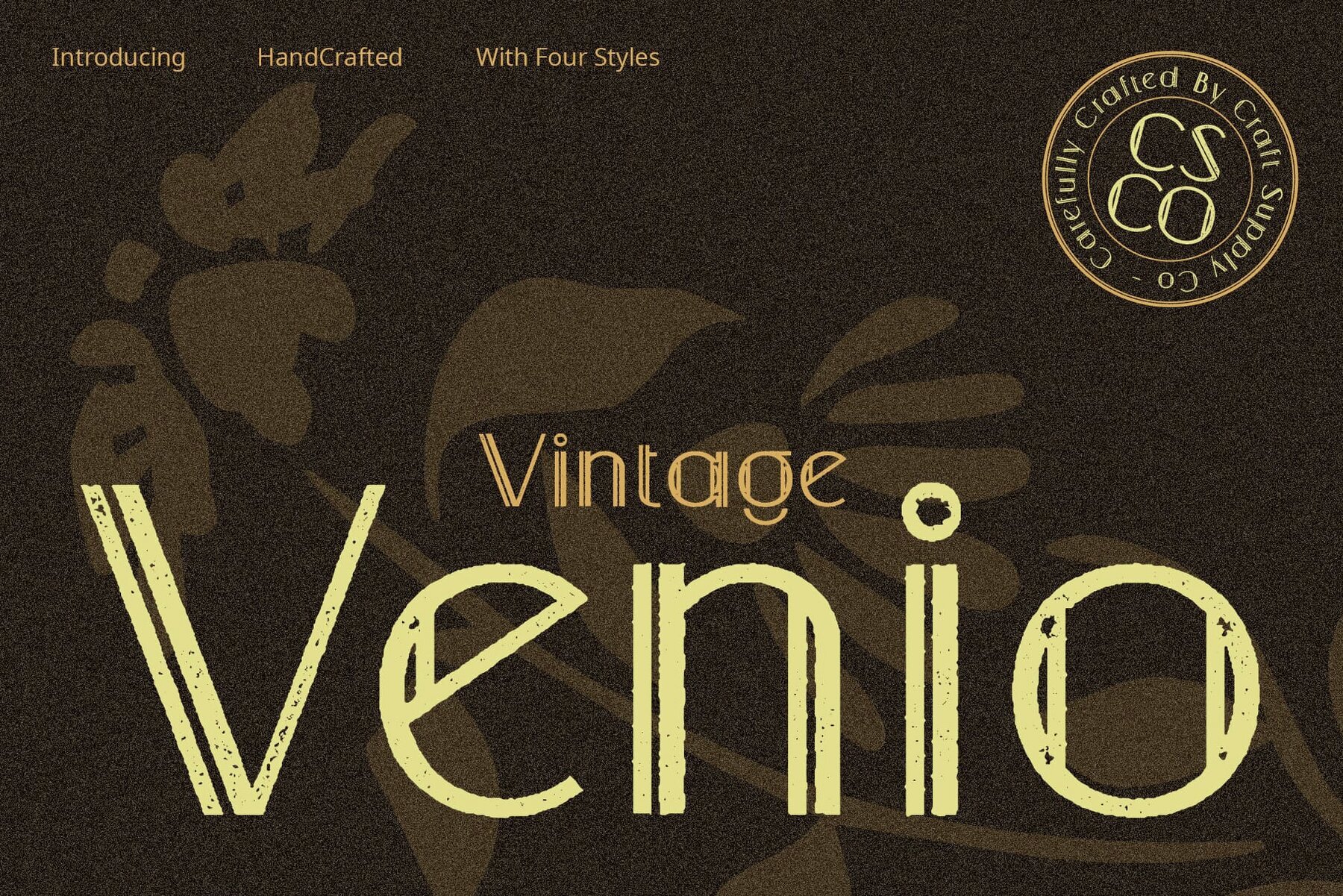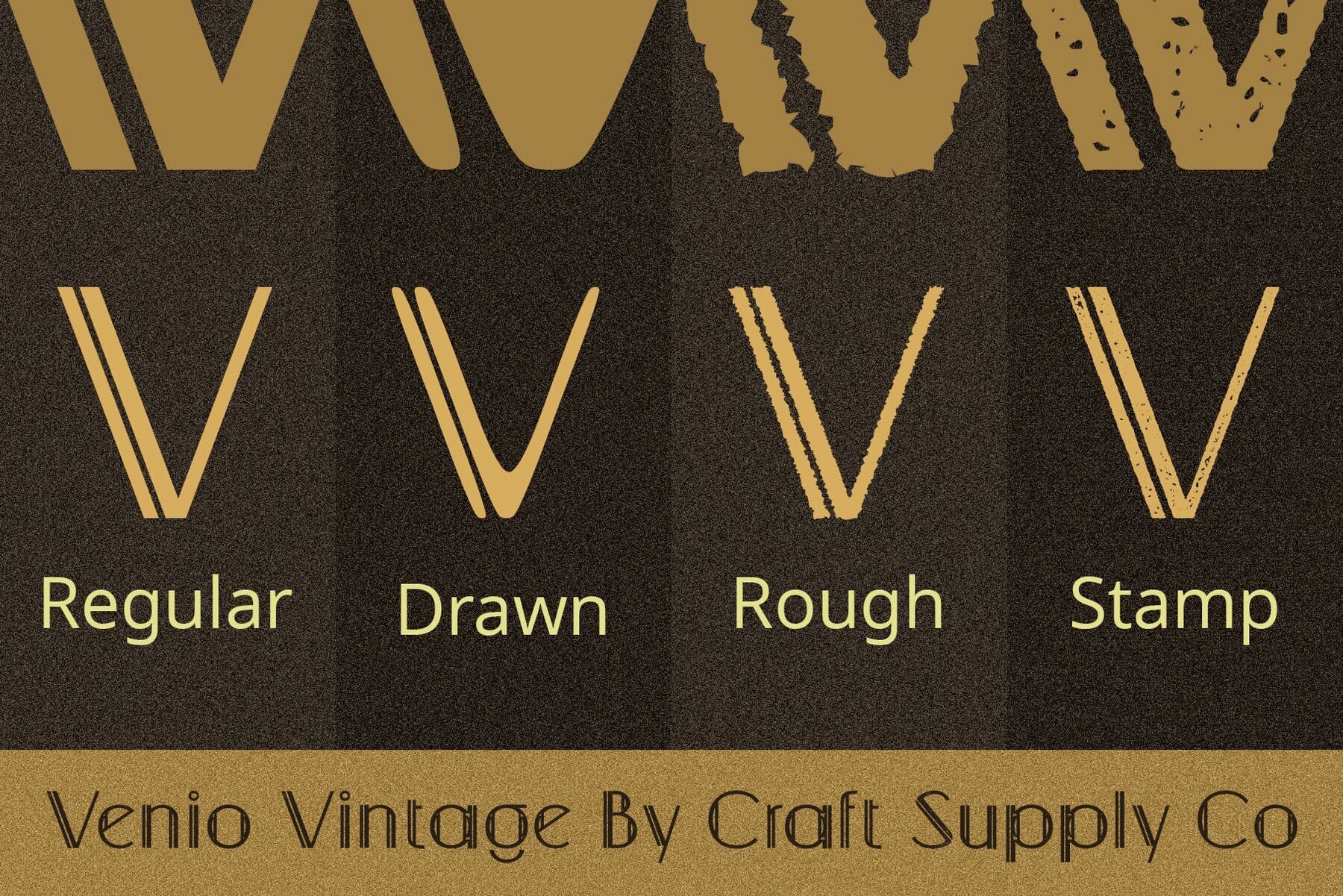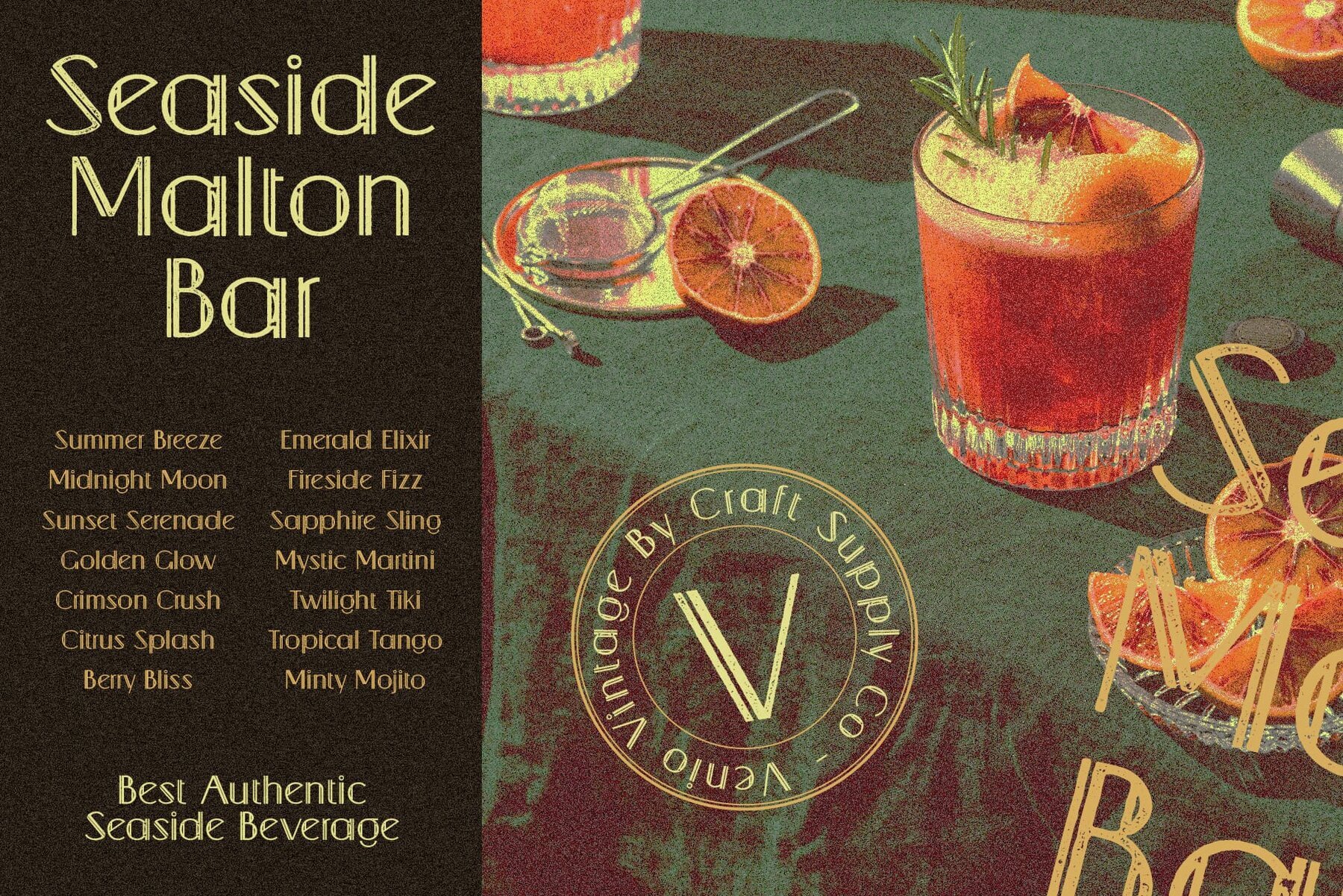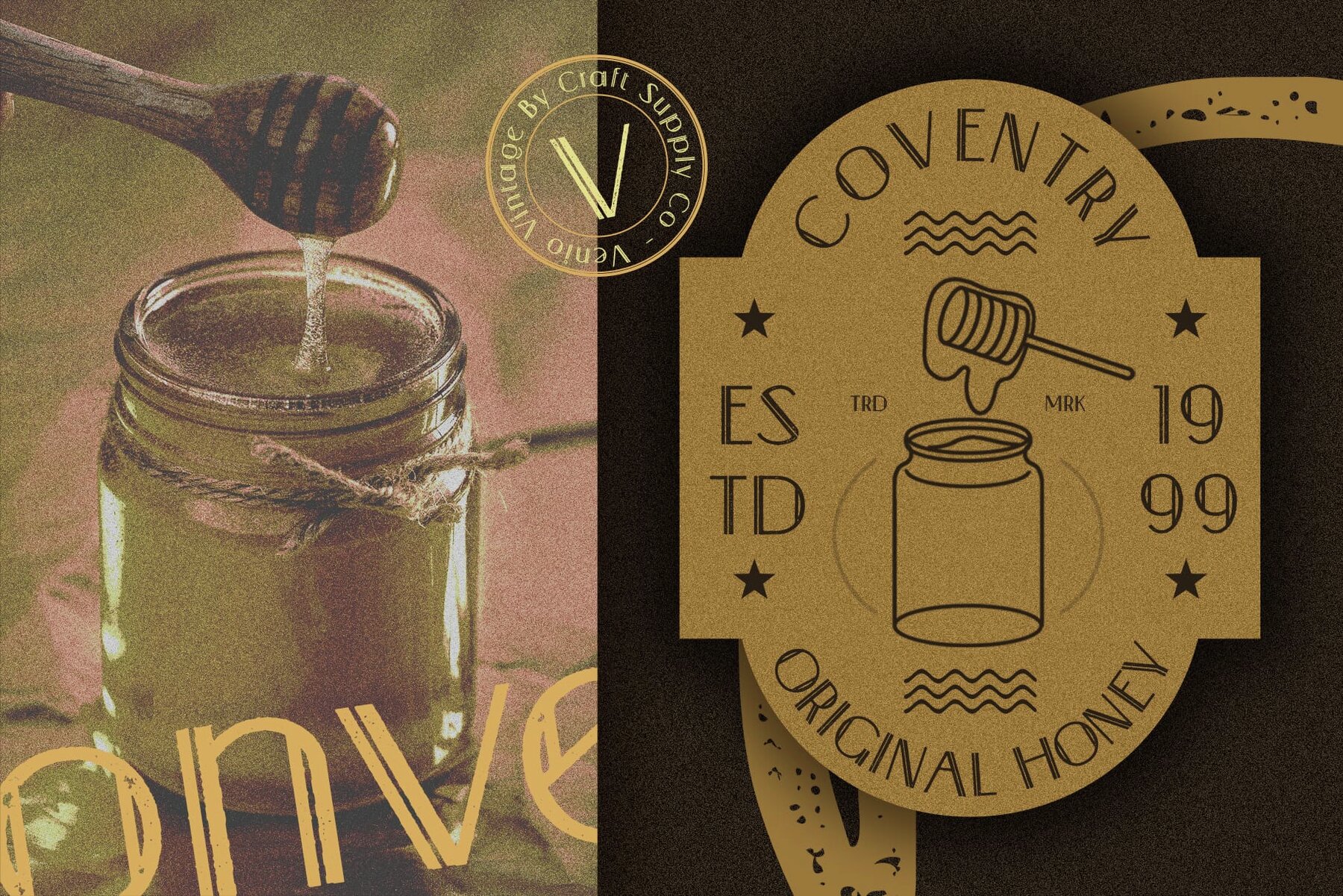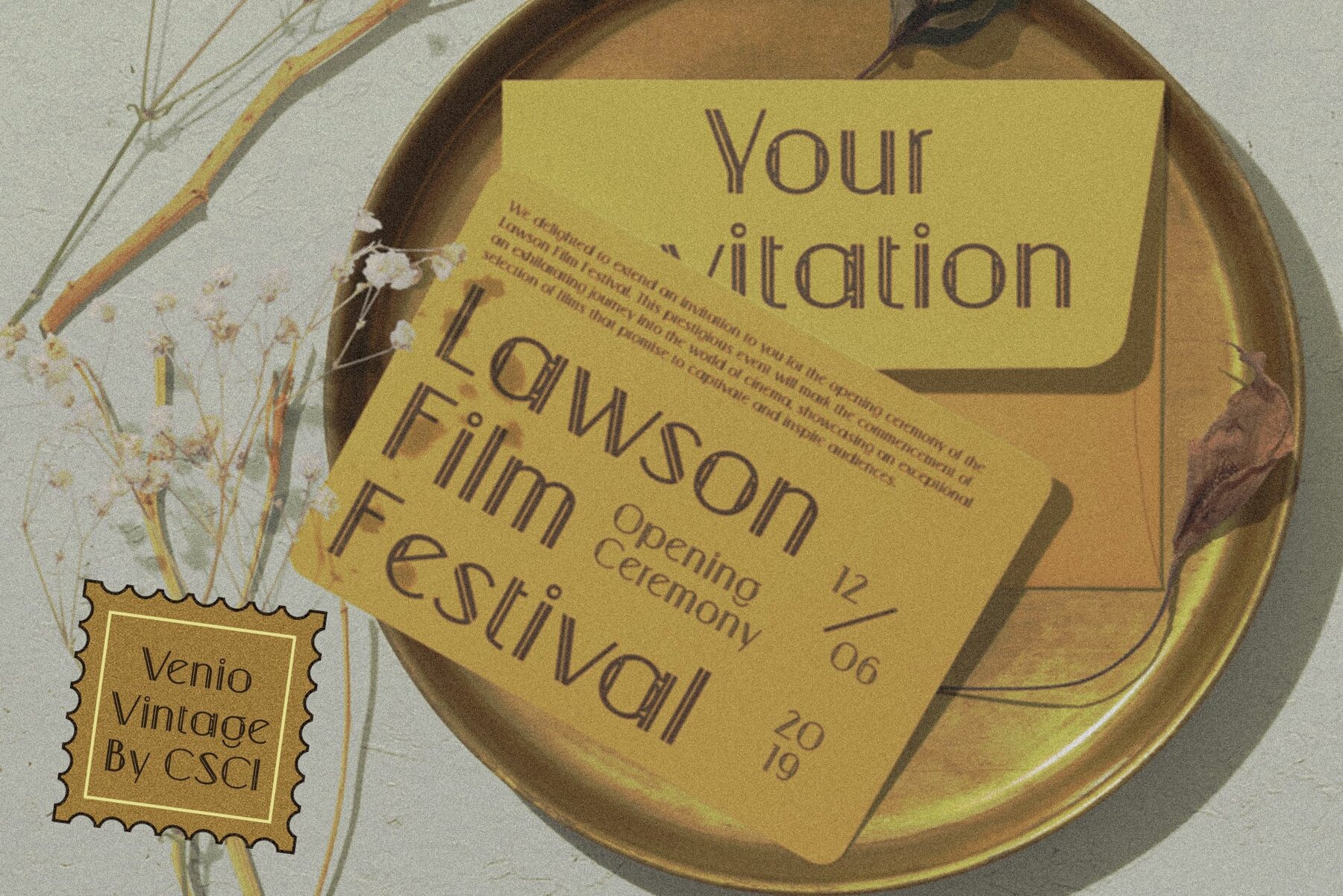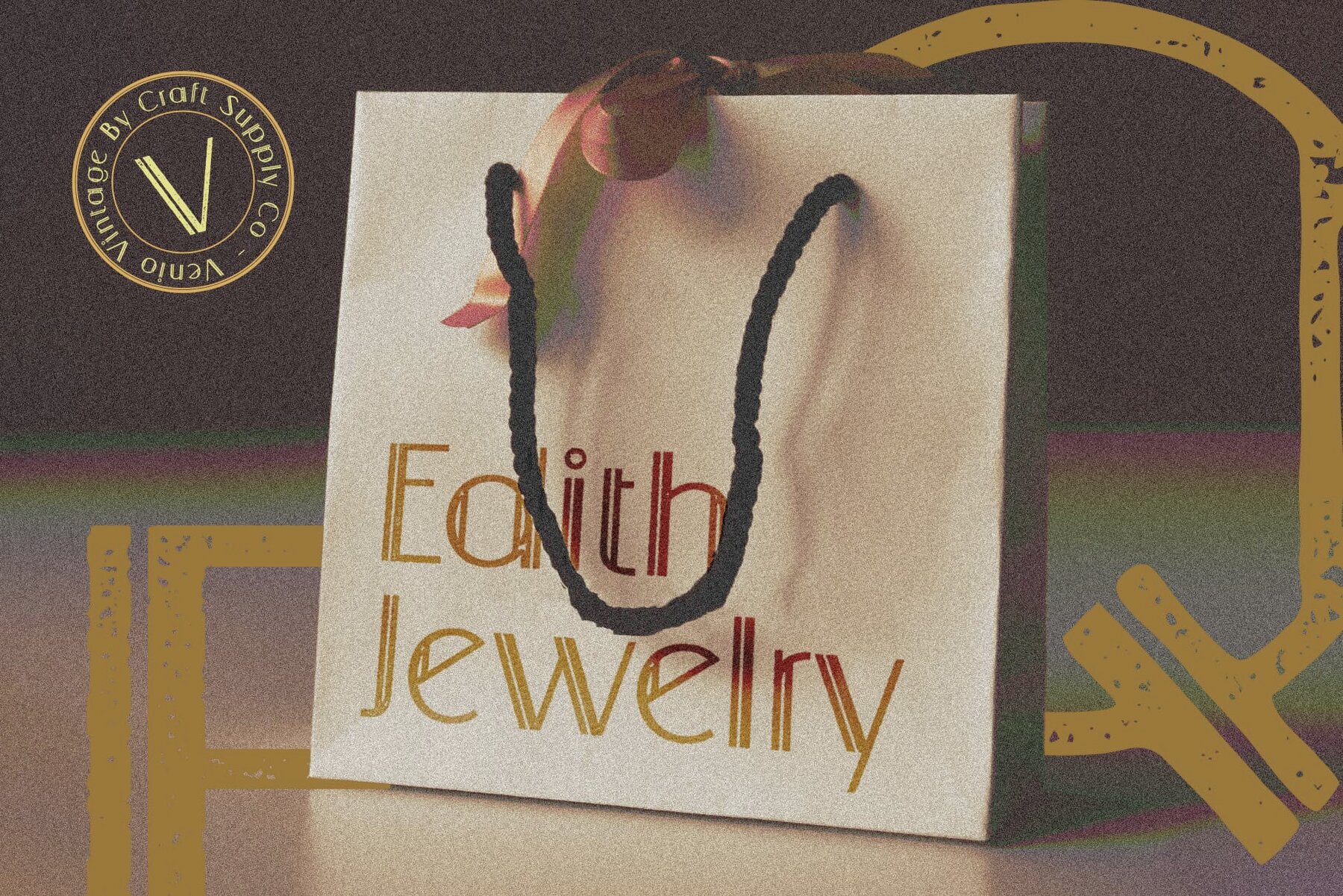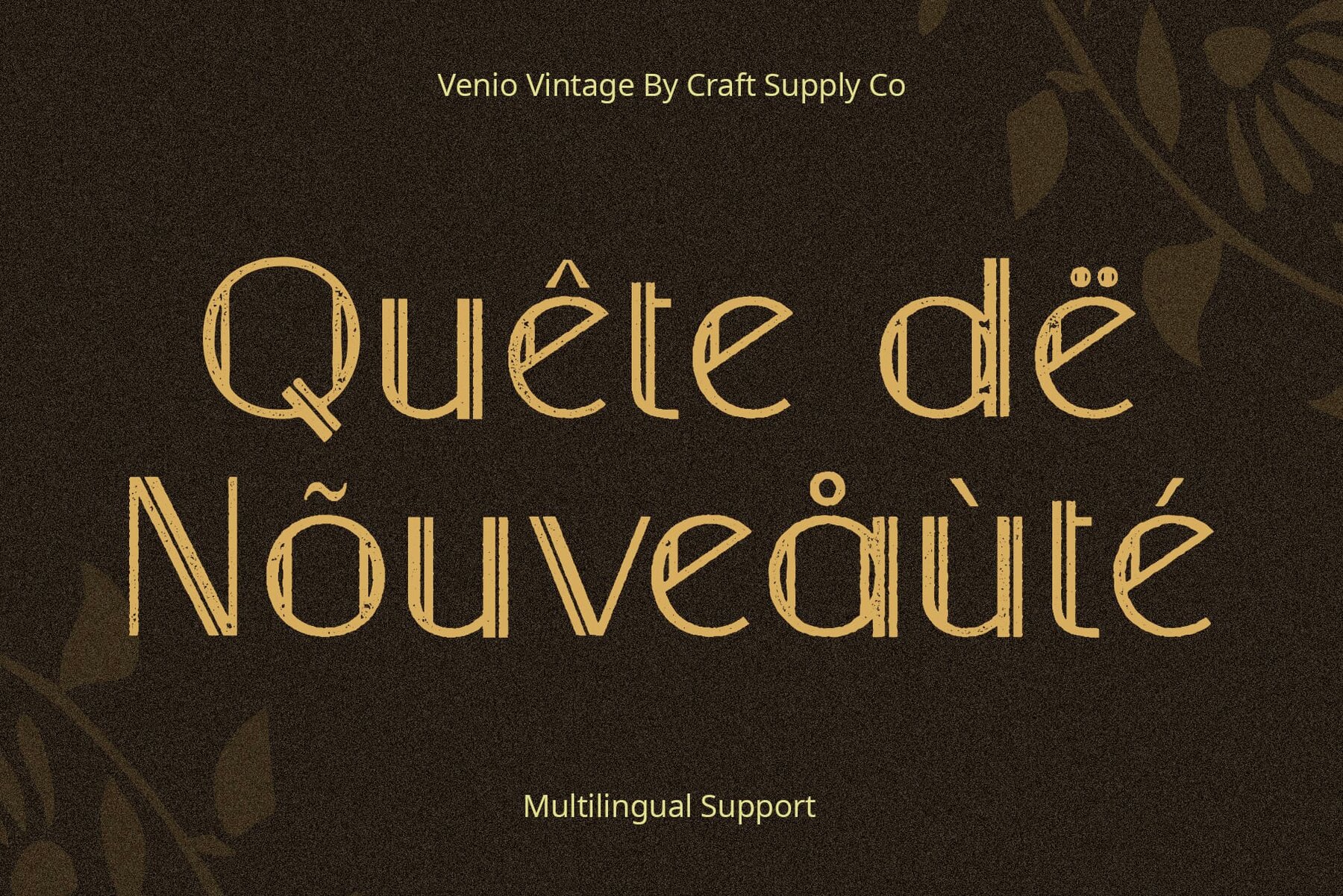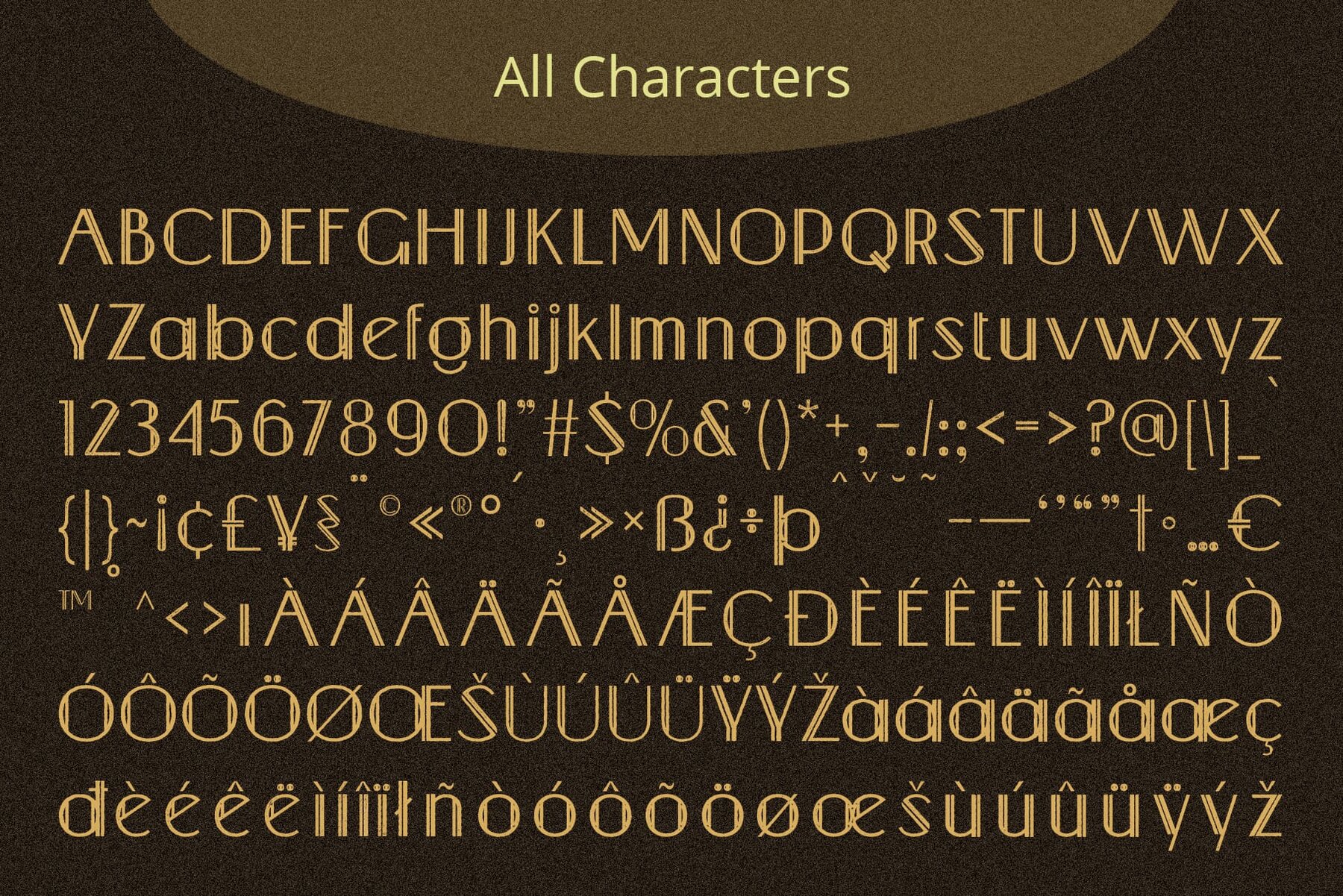
Venio Vintage Font
Venio Vintage by Craft Supply Co. offers a sleek sans serif design inspired by the Art Deco movement. This font captures the elegance and style of the early 20th century with its clean lines and geometric shapes. Perfect for retro-themed projects, Venio Vintage infuses a sense of nostalgia into branding, packaging, and editorial layouts, offering a unique flair. No specialized software is necessary to utilize Venio Vintage's elegant and timeless design.Venio Vintage: Art Deco-Inspired Sans Serif Font
Key Characteristics
Ideal for Design Projects